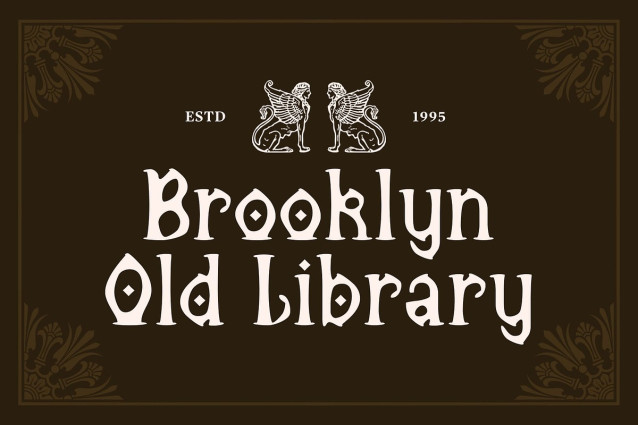
CS Gathery Drawn Font
CS Gathery Drawn Font is a classic serif display font that combines refined decorative structure with a subtle hand-drawn effect, delivering a sense of warmth, artistry, and originality. Its letterforms are thoughtfully crafted with graceful curves and ornamental nuances, offering a vintage-inspired charm that feels both sophisticated and distinctive.
Ornamental Detail Meets Clean Structure What sets this creative font apart is its ability to blend traditional serif sophistication with light decorative flair, all enhanced by a drawn texture that suggests handcrafted quality. These details result in a font that feels rich in personality, ideal for conveying stories and messages with emotional and visual depth.
Versatile for Elegant and Vintage-Inspired Designs This font shines in settings that call for a classical yet artistic voice—perfect for editorials, book covers, packaging for luxury goods, personal branding, or boutique labels. This artistic font offers both readability and ornamentation, making it a powerful tool for designers seeking elegance with a creative edge.
A Font That Captivates and Elevates Whether you’re aiming to add vintage sophistication or a touch of artistic expression to your design, this classic font adapts seamlessly. It stands out in headers and titles while maintaining balance and beauty. Use it to bring charm, refinement, and authenticity into your next creative project.